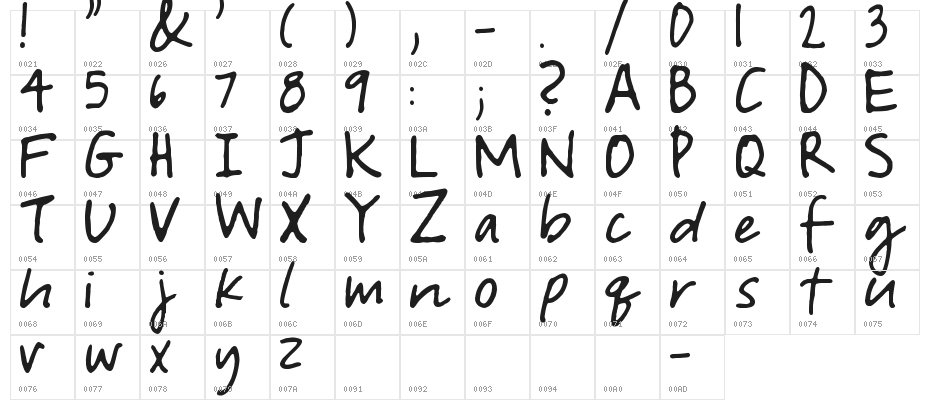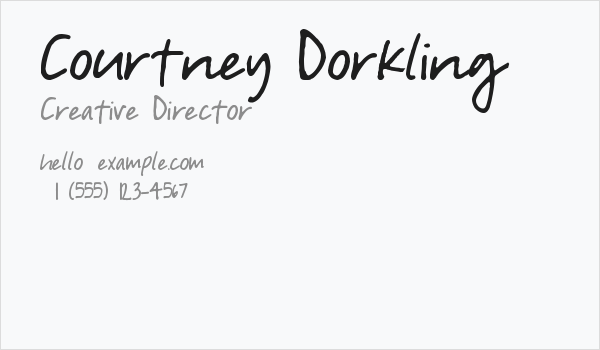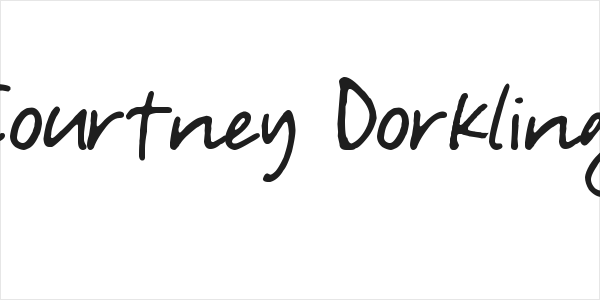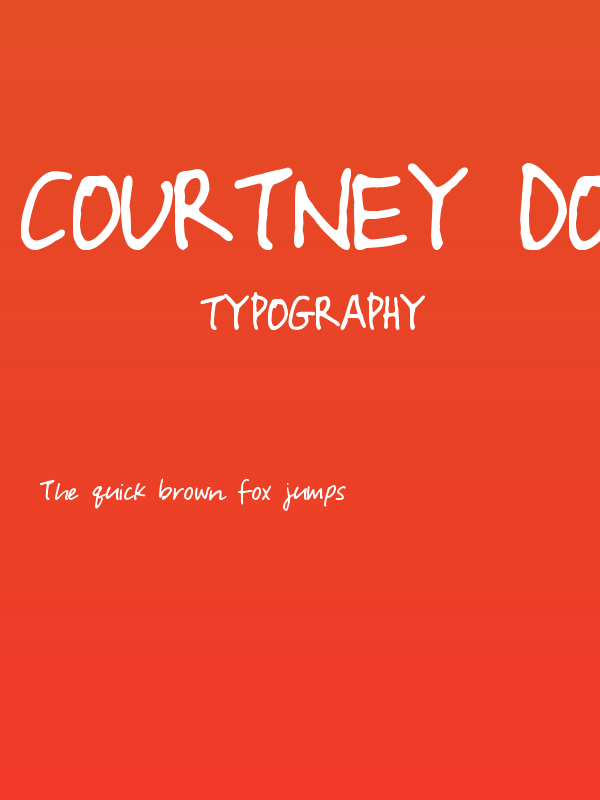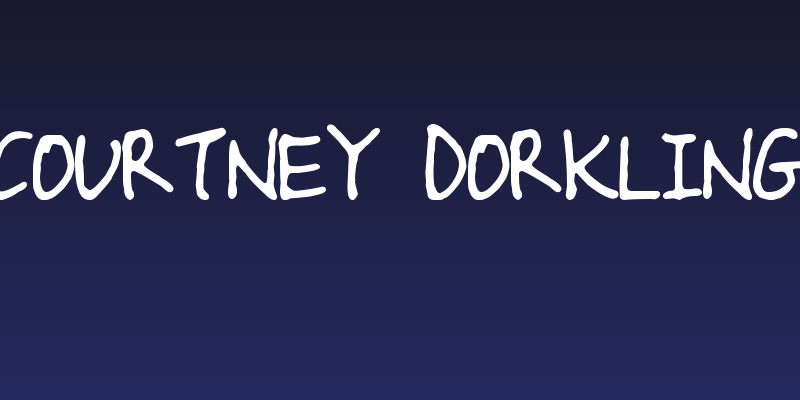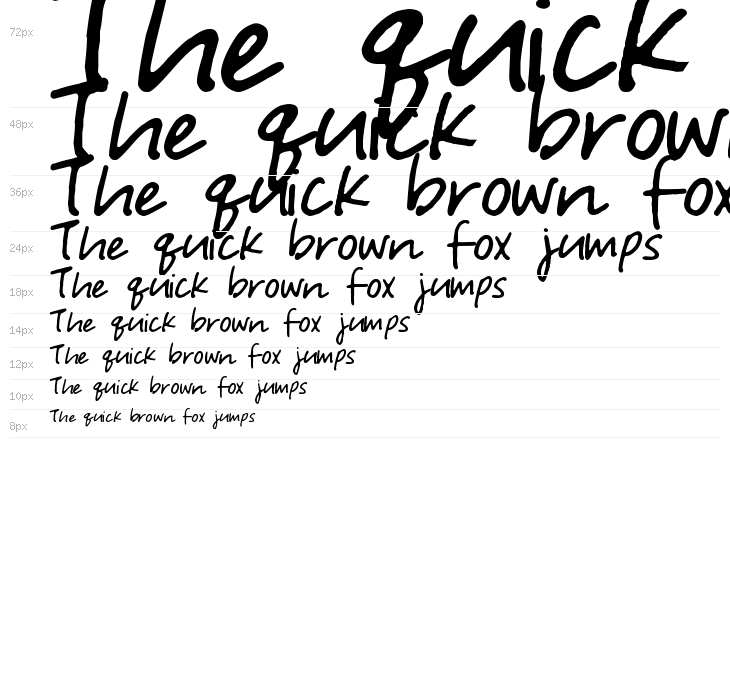
Courtney Dorkling Font
Courtney Dorkling Description
This font exudes a playful and casual handwritten style, characterized by its irregular and organic strokes. The letters are slightly slanted, giving it a dynamic and informal appearance. The uppercase and lowercase letters maintain a consistent flow, with rounded edges and varying stroke widths that add to its charm. The numerals and special characters follow the same whimsical style, making it suitable for projects that require a personal touch. Its overall appearance is approachable and friendly, ideal for conveying warmth and creativity.
Overall StyleCasual, Playful
Use CaseHeadlines, Informal text, Creative projects
Proposed ProjectsIdeal for greeting cards, children's books, casual branding, and personal blogs.